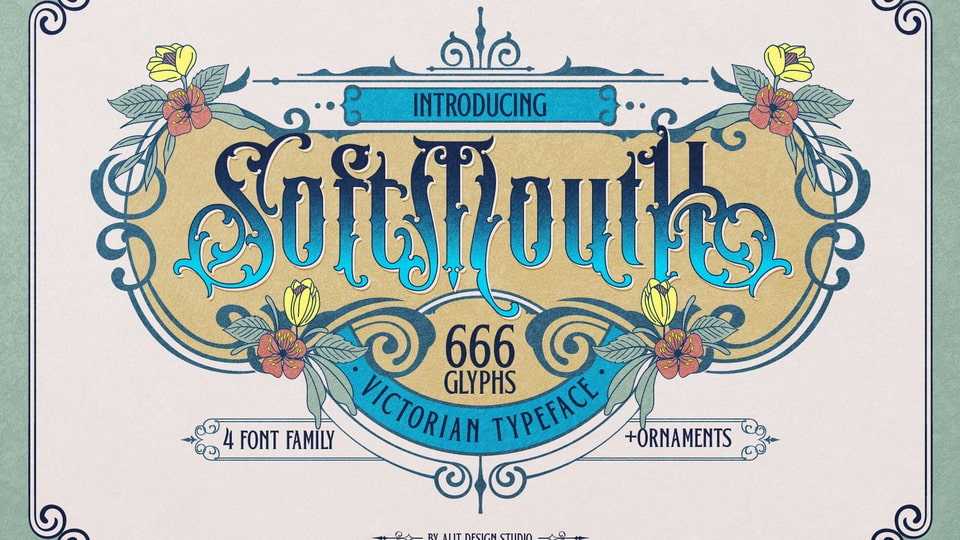
Download Soft Mouth font, a stunning decorative typeface that encapsulates the essence of Victorian elegance. Soft Mouth font style exudes an air of refinement and opulence, perfect for adding a touch of grandeur to your design projects.